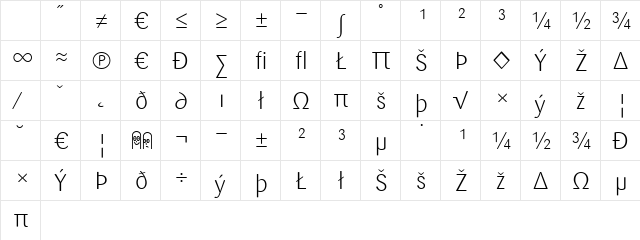
Complete Sari Light glyph index. Displaying only characters natively supported by Sari Light font.
Sari is a composed and adaptable typeface that performs quietly and consistently across a wide range of design contexts. Its slender proportions lend an understated elegance to any composition.